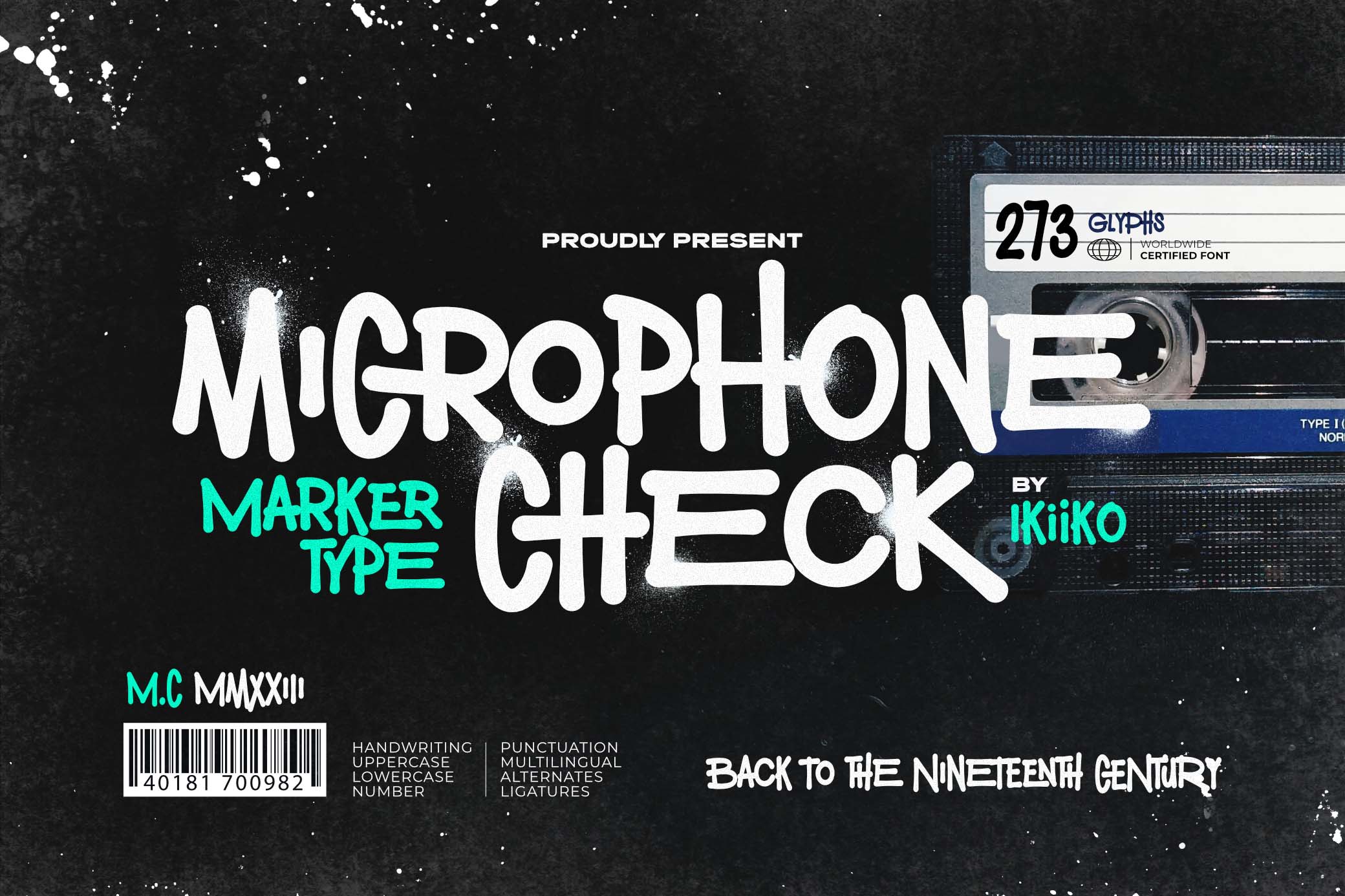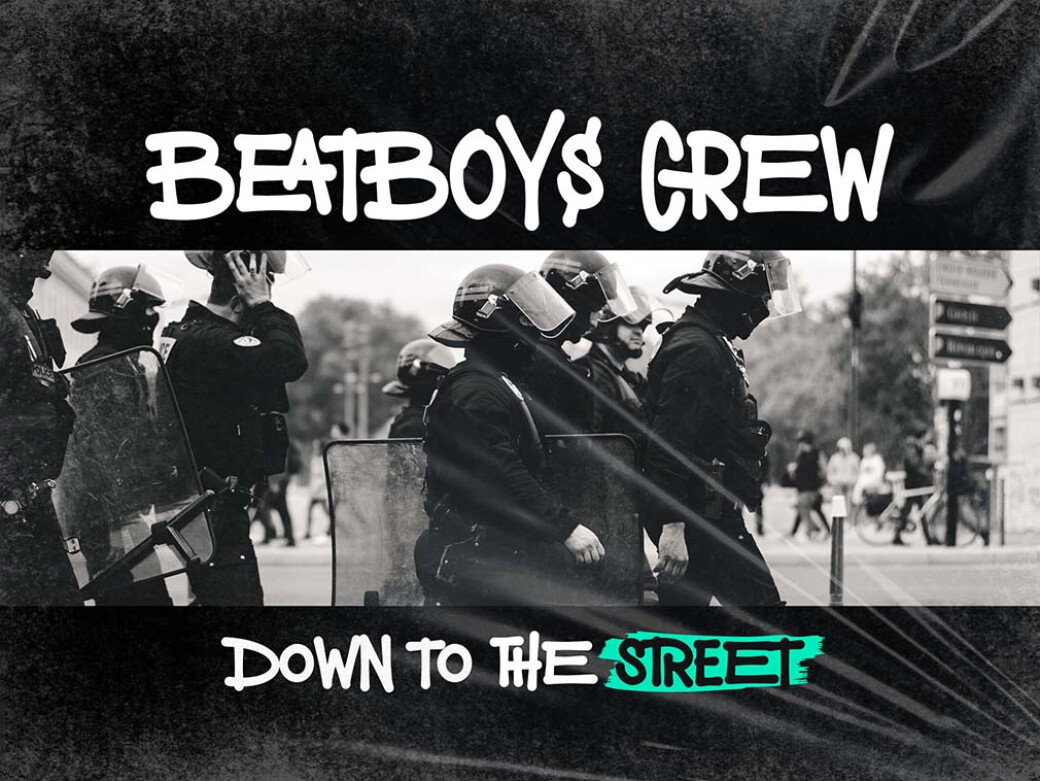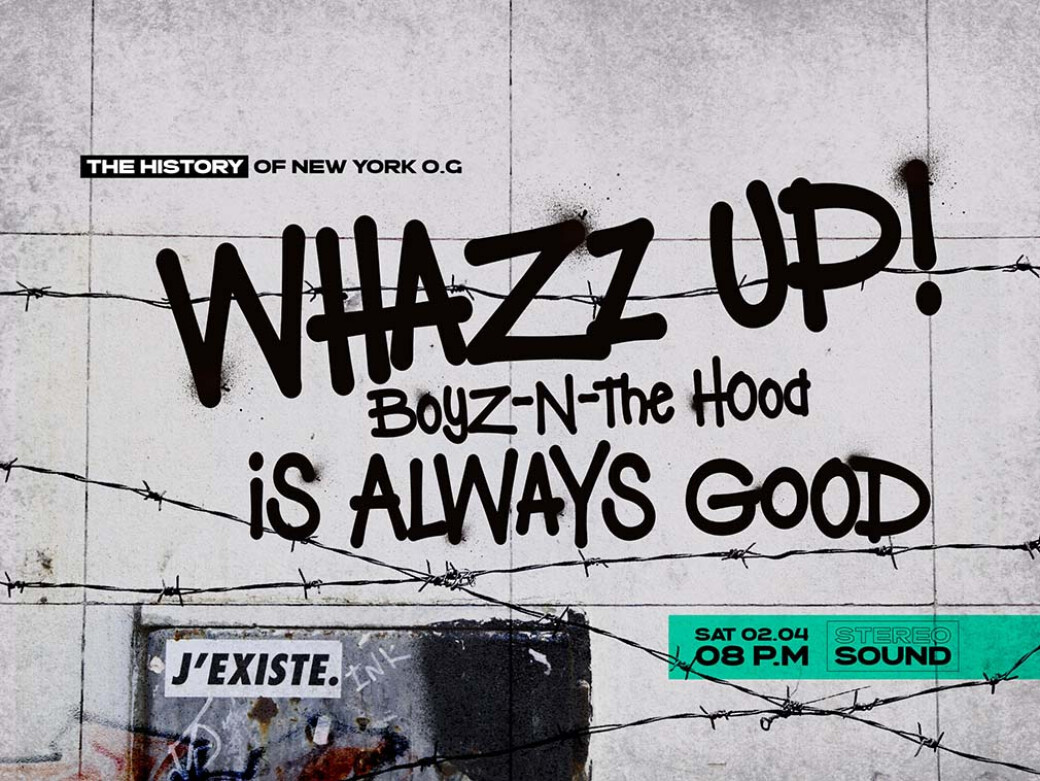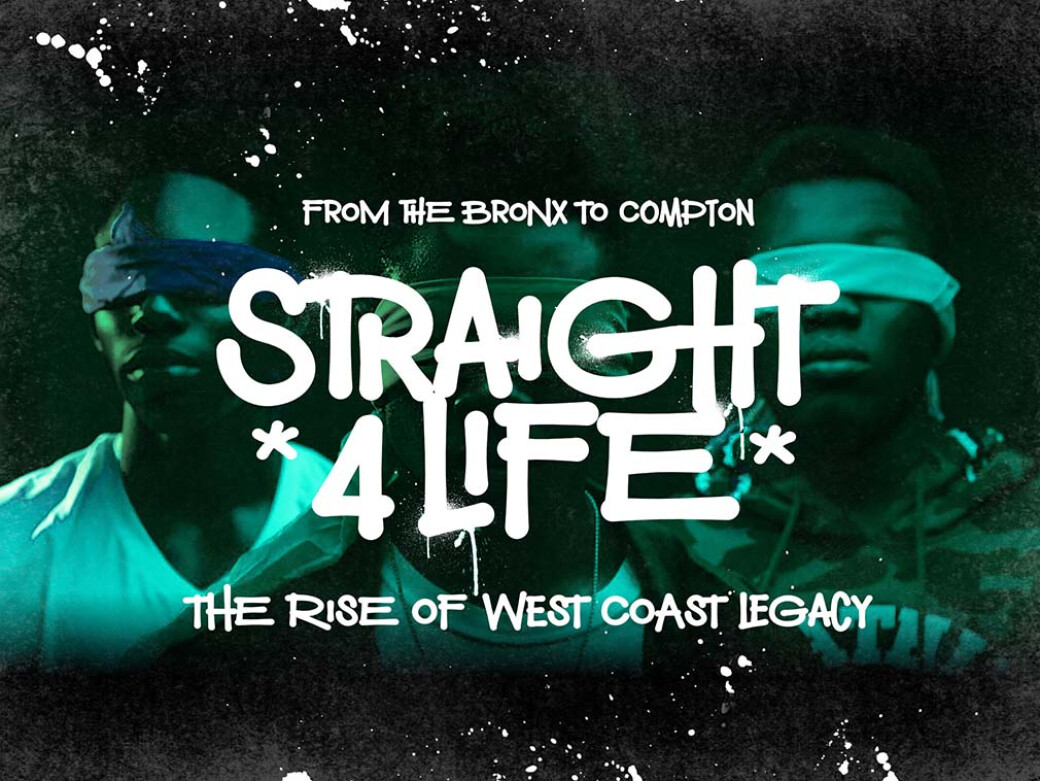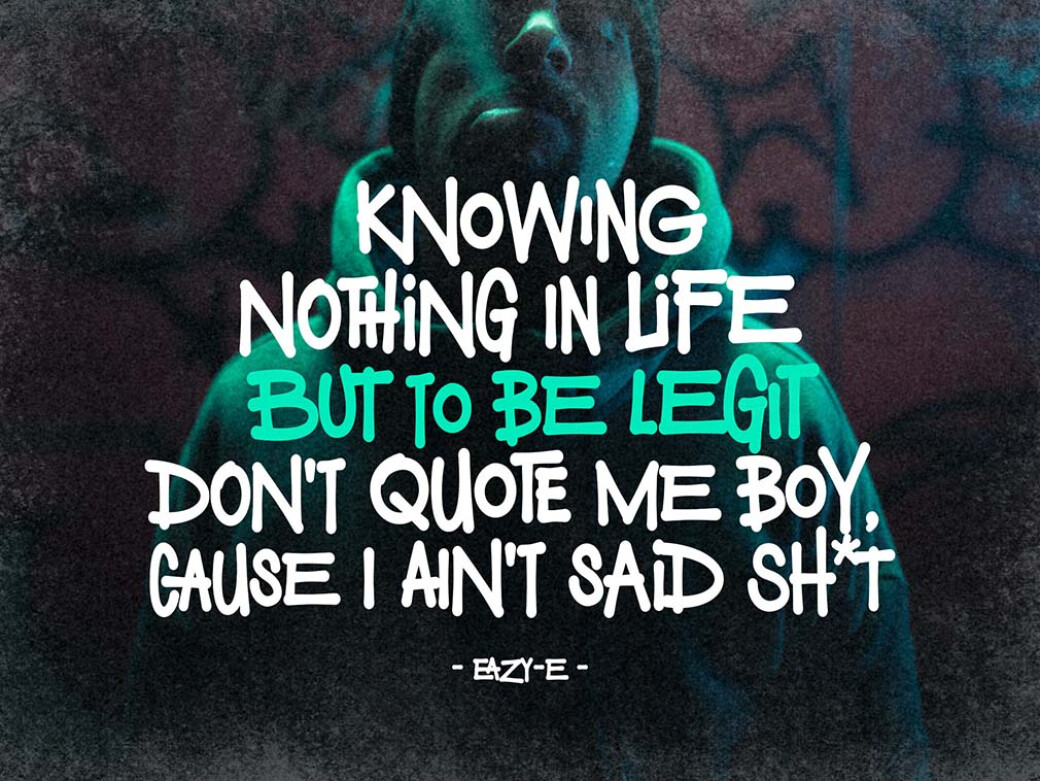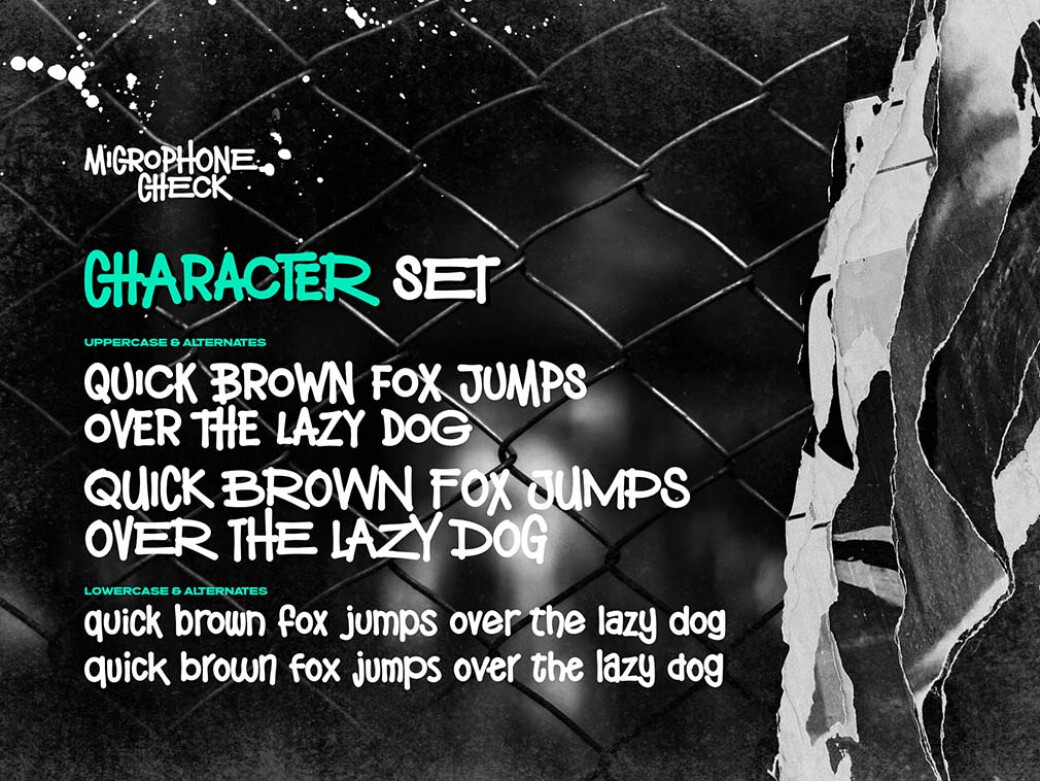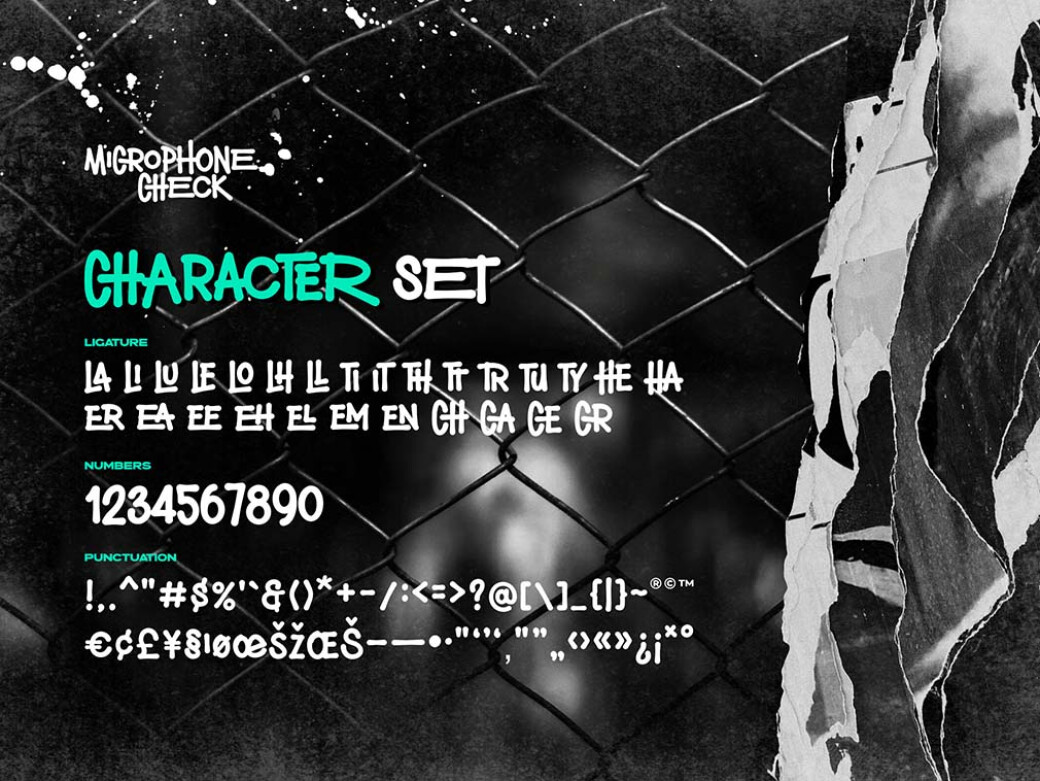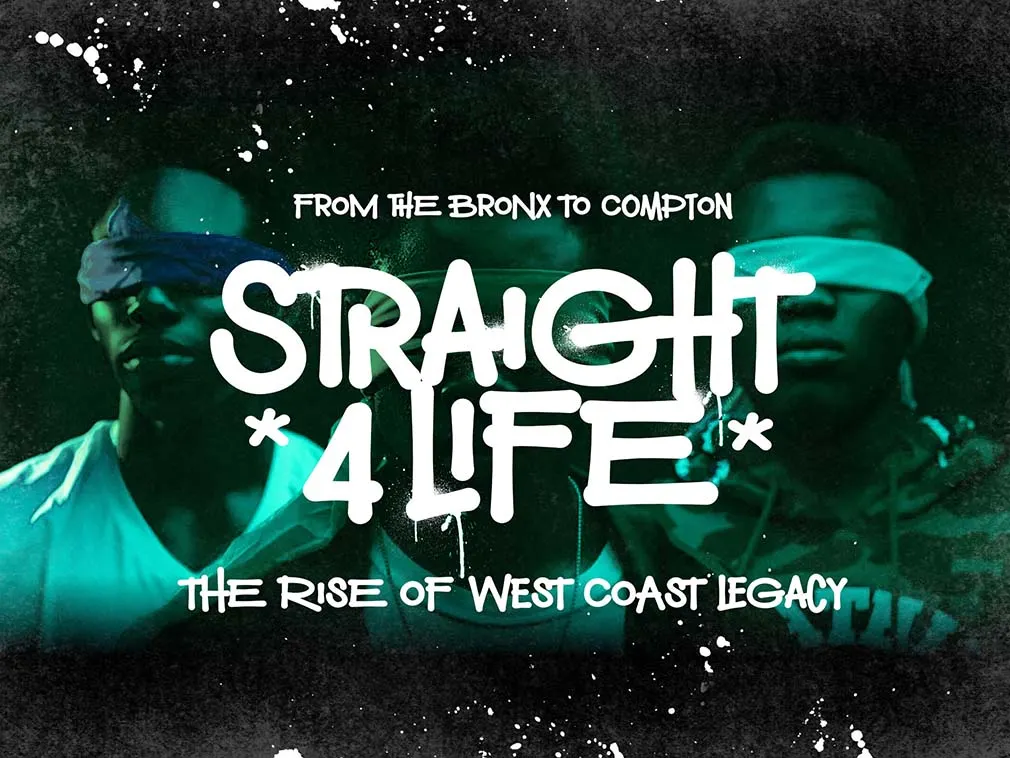
Microphone Check: Marker Font
Would you believe a single font can teleport you to a recording studio? Just imagine: you are there recording the first album of Linkin Park and signing the tape with a permanent marker.We traditionally associate the 50s-80s fonts with nostalgia. However, even a grunge typeface can make you long for the good old days when your fav bands were just rising stars. For example, this one, Microphone Check, inspired by handwriting from tapes made with a black marker. Such tapes were sent to labels and producers. And you can share designs featuring this font with your customers, community, and colleagues — as a part of your prints, music album covers, or event posters. The package includes a complete set of characters, plus multilingual support, ligatures, and alternates.